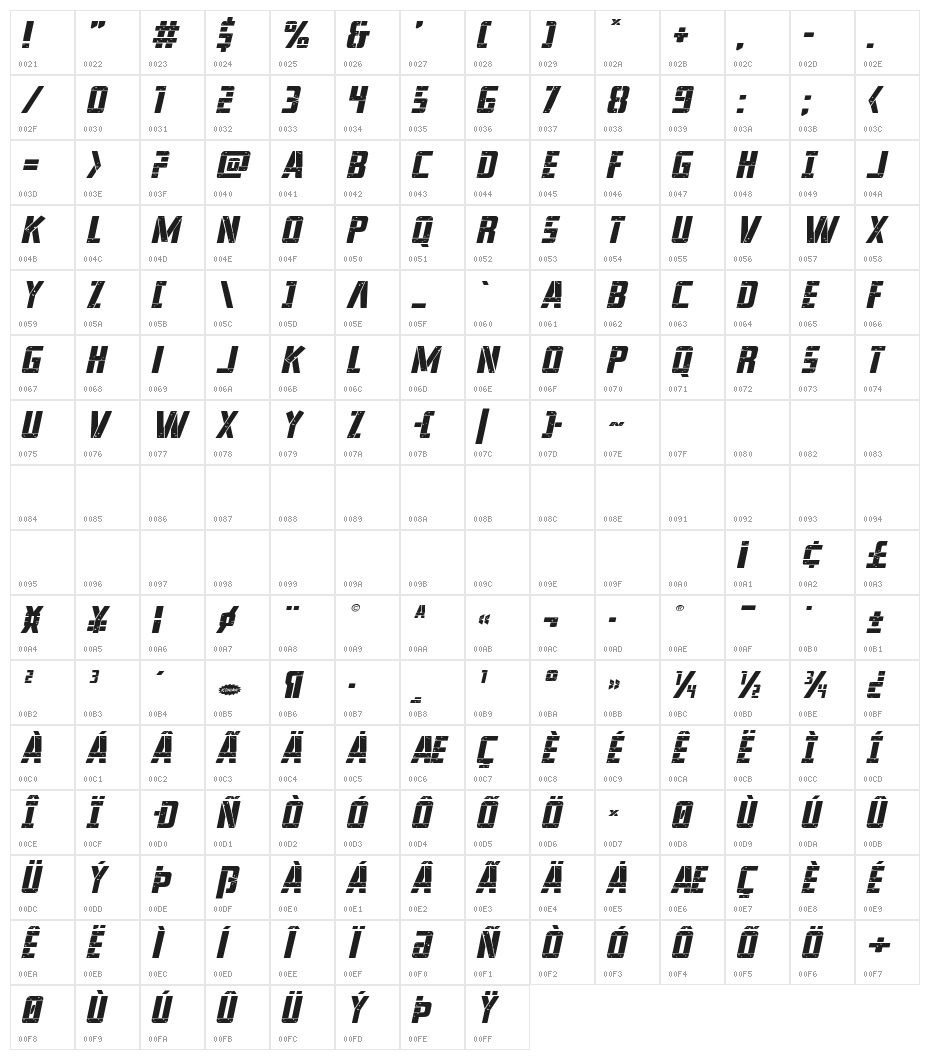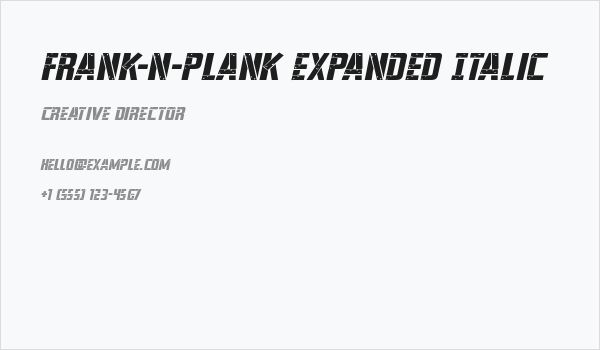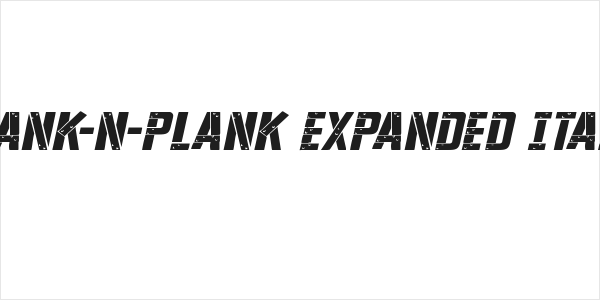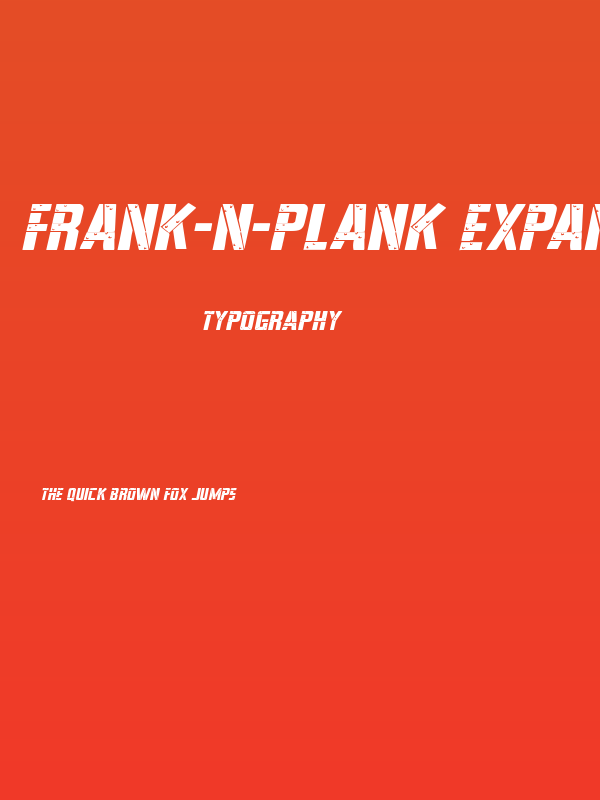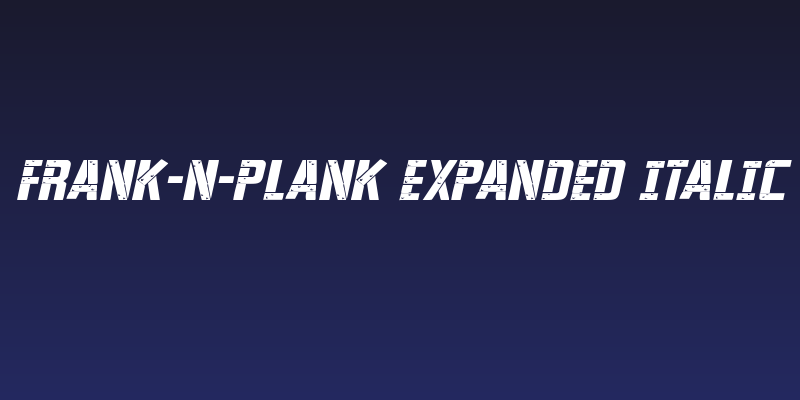
Frank-n-Plank Expanded Italic Font
Frank-n-Plank Expanded Italic Description
This font features a bold and dynamic design with a distinct industrial aesthetic. The characters are constructed with a stencil-like appearance, incorporating angular cuts and geometric shapes that create a sense of movement and energy. The expanded width and italic slant add to its boldness, making it stand out in any design. The font includes uppercase and lowercase letters, numerals, and a variety of special characters, all maintaining the same robust style. Its unique design elements make it suitable for projects that require a strong visual impact.
| Overall Style | Modern, Industrial |
| Proposed Projects | Ideal for branding, posters, signage, and any project needing a strong, industrial look. |